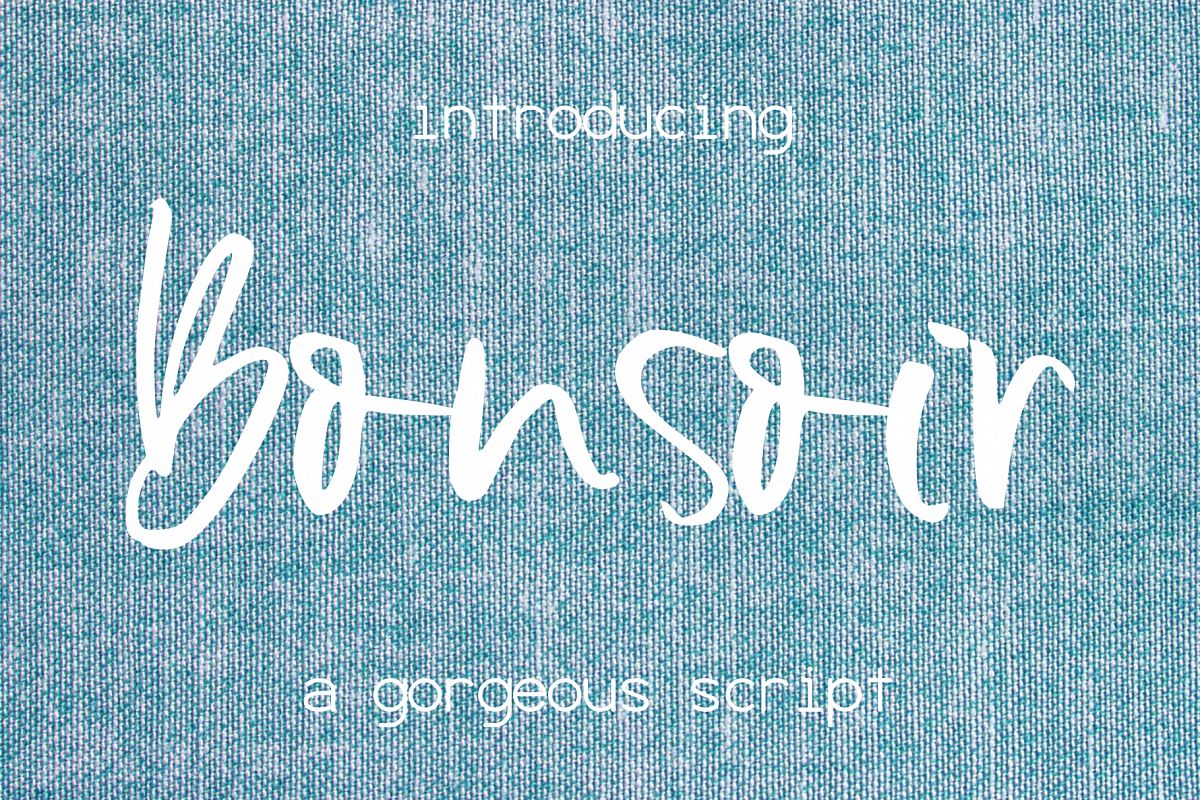
Created By SophieSaxo
Bonsoir Font
Bonsoir-Regular
Introducing Bonsoir, a gorgeous handwritten script.?
Perfect for any graphic and logo designs, wedding and birthday invitations.
Bonsoir font contains uppercase & lowercase characters, numbers and punctuations.